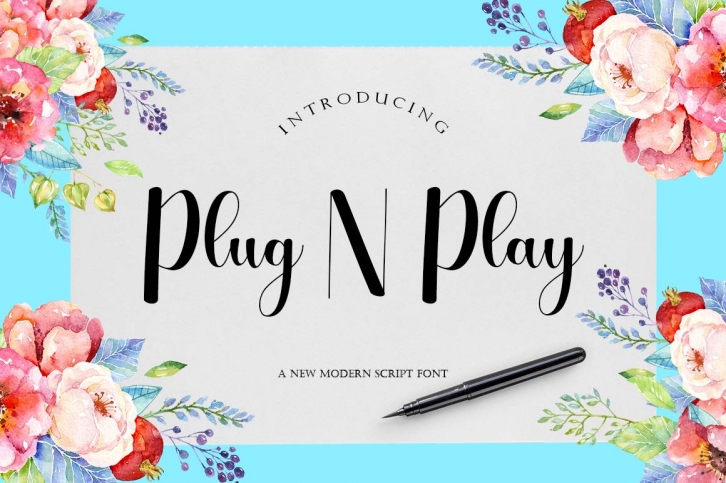
Plug N Play is a great font that was designed by Natural Ink. Imagine the amount of combinations you can create using this font! The archive is 3.10 MB and it was released on December 18, 2018. Plug N Play looks beautiful on wedding invitations, greeting cards, logos, posters, labels, t-shirt designs, logos, business cards and is perfect for use in ink or watercolor works, fashion, magazines, packaging and food menus, children's books and more!